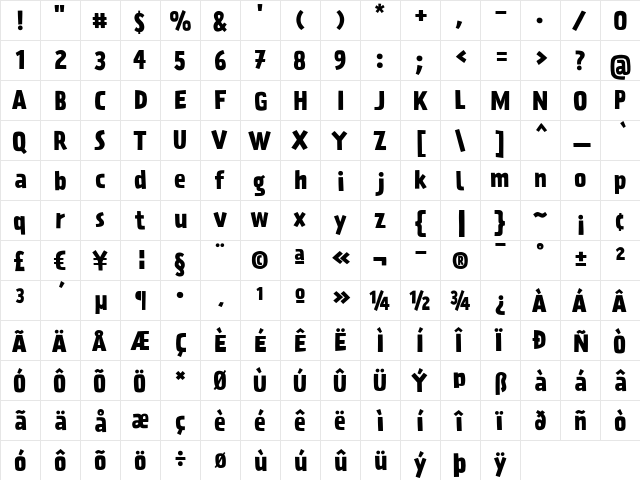
PraterSansOne-Bold Bold
| Foundry | Steffen Sauerteig, Henning Wagenbreth, published by Fontshop International for the FontFont library |
Design Context for PraterSansOne-Bold Typeface
PraterSansOne-Bold offers clean, dependable letterforms without strong stylistic allegiance, making it a practical choice for designers who need flexibility. The heavy weight commands attention and anchors typographic hierarchies.